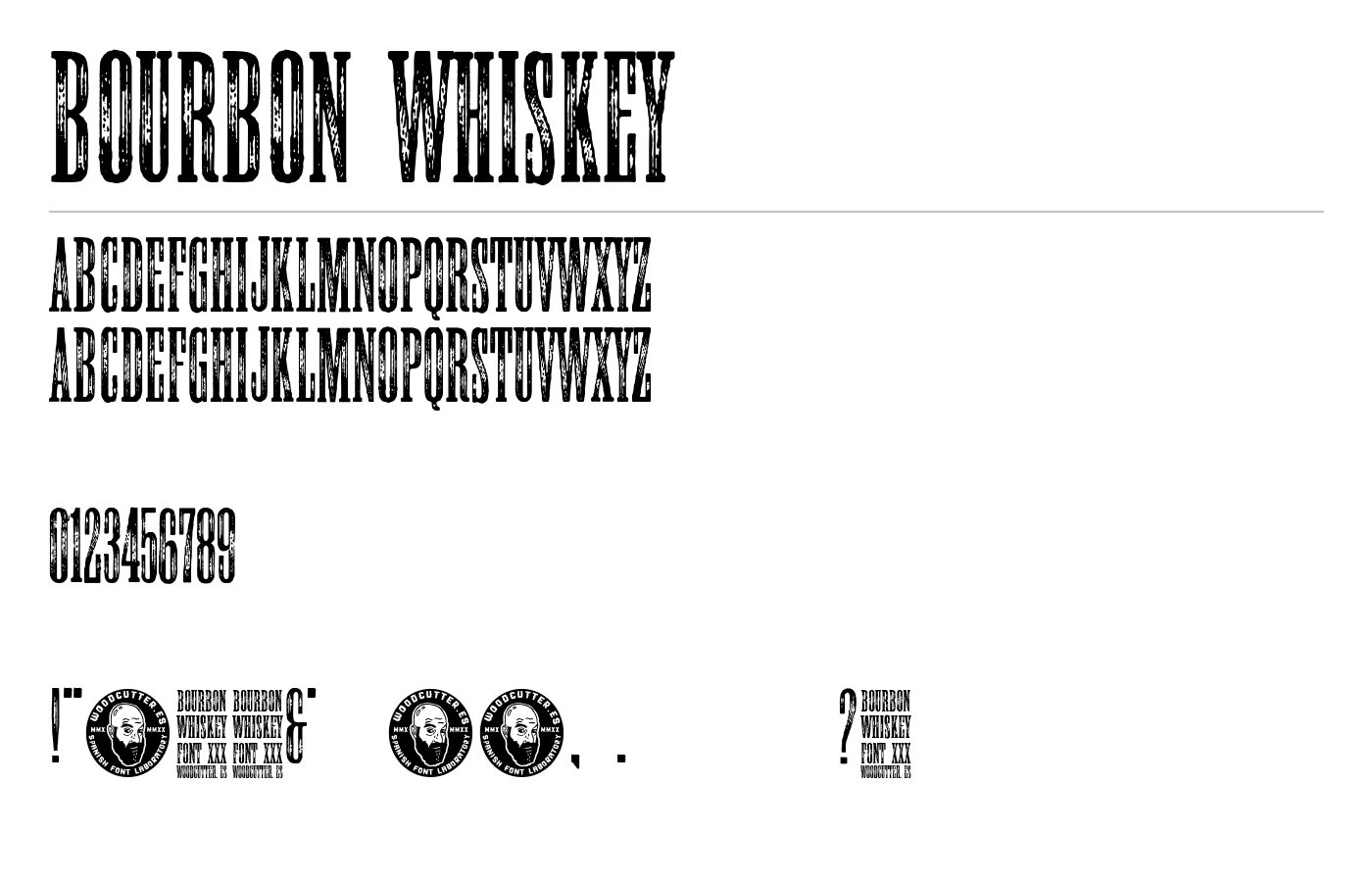
Bourbon Whiskey is a bold, condensed serif font with a high contrast between thick and thin strokes, featuring a distressed texture that adds a rugged, vintage charm. Its tall, narrow letterforms and classic slab serif details give it a strong, commanding presence, perfect for evoking old-time Americana or rustic branding. This font works brilliantly for logos, posters, and packaging where a nostalgic, handcrafted feel is desired.
Bourbon whiskey Font